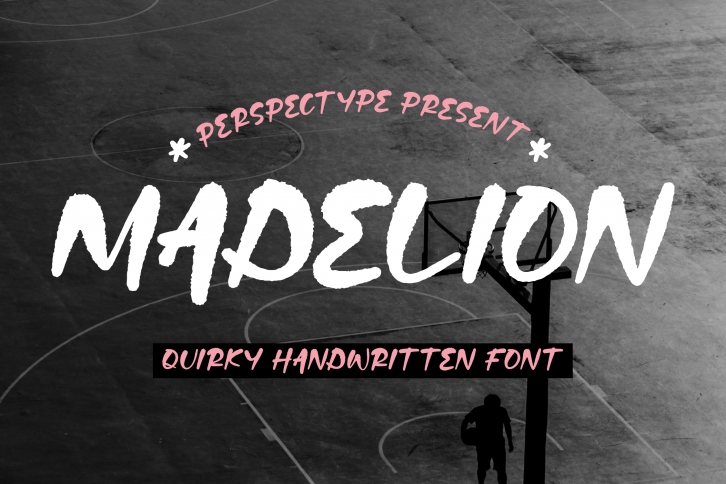
MADELION – Quirky Handwritten Font , from Perspectype Studio, suitable for any projects such as: logos, branding projects, homeware designs, product packaging, mugs, quotes, posters, shopping bags, t-shirts, book covers, name card, invitation cards, greeting cards, label, photography, watermark, special events, and all your other lovely projects that need a beautiful script taste.